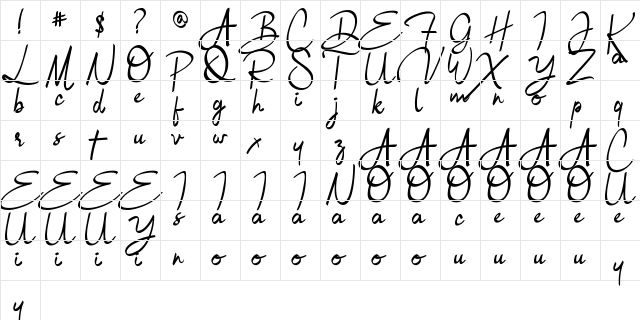
Bulgatti Regular
| Foundry | Creatype Studio Co. |
| Designer | Rian Rahardi |
Design Context for Bulgatti Typeface
Bulgatti is a composed and adaptable typeface that performs quietly and consistently across a wide range of design contexts.